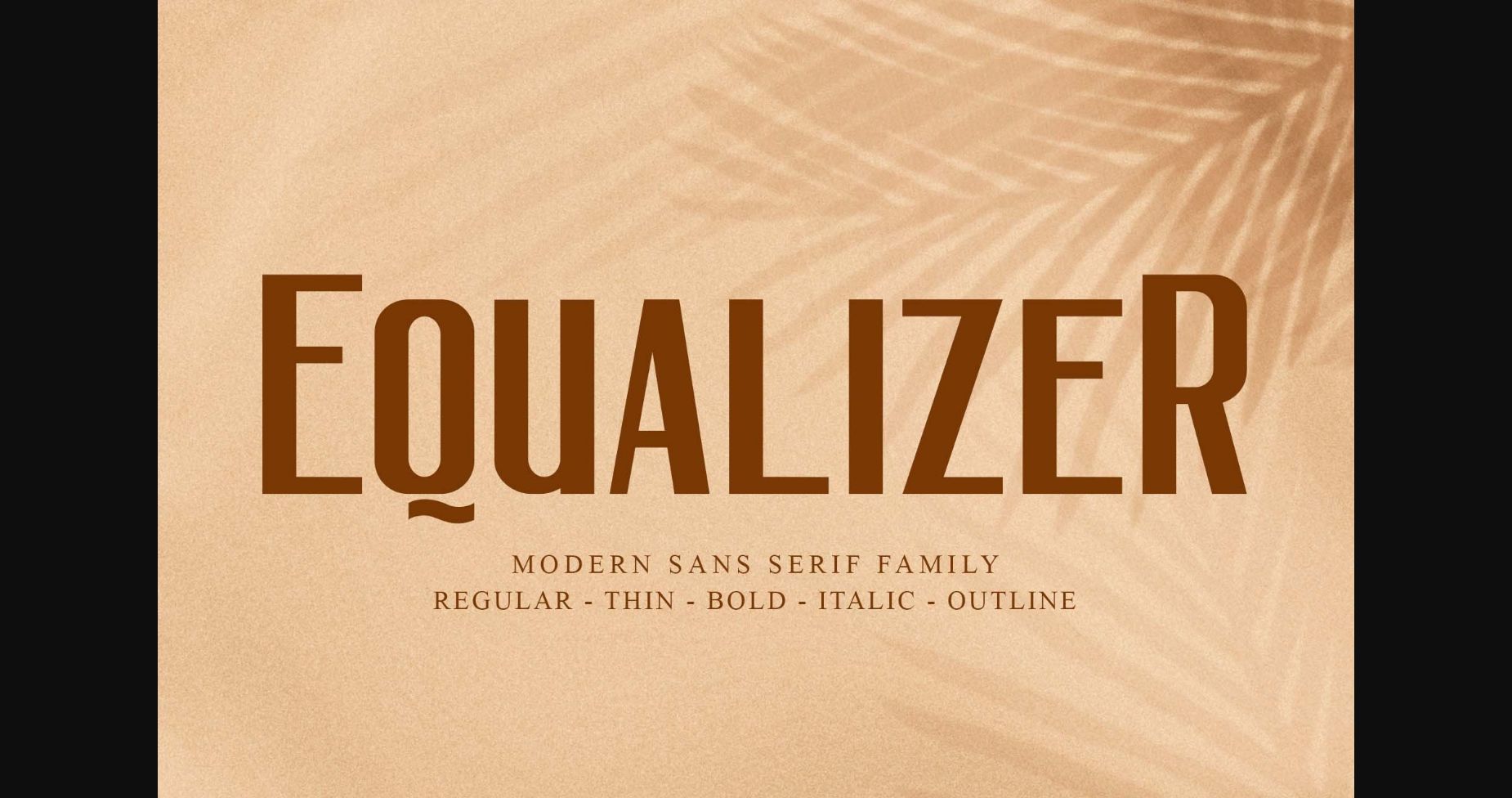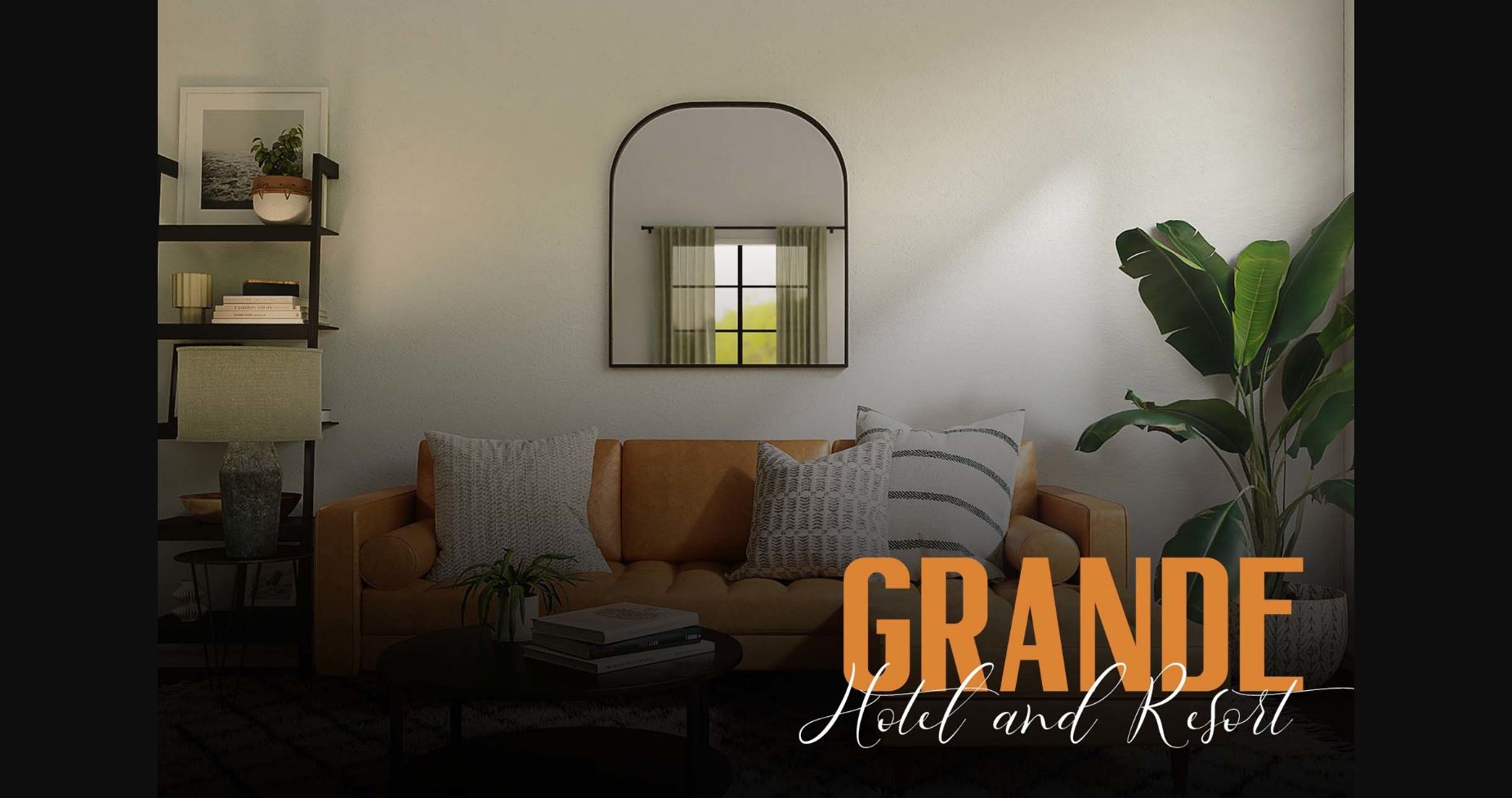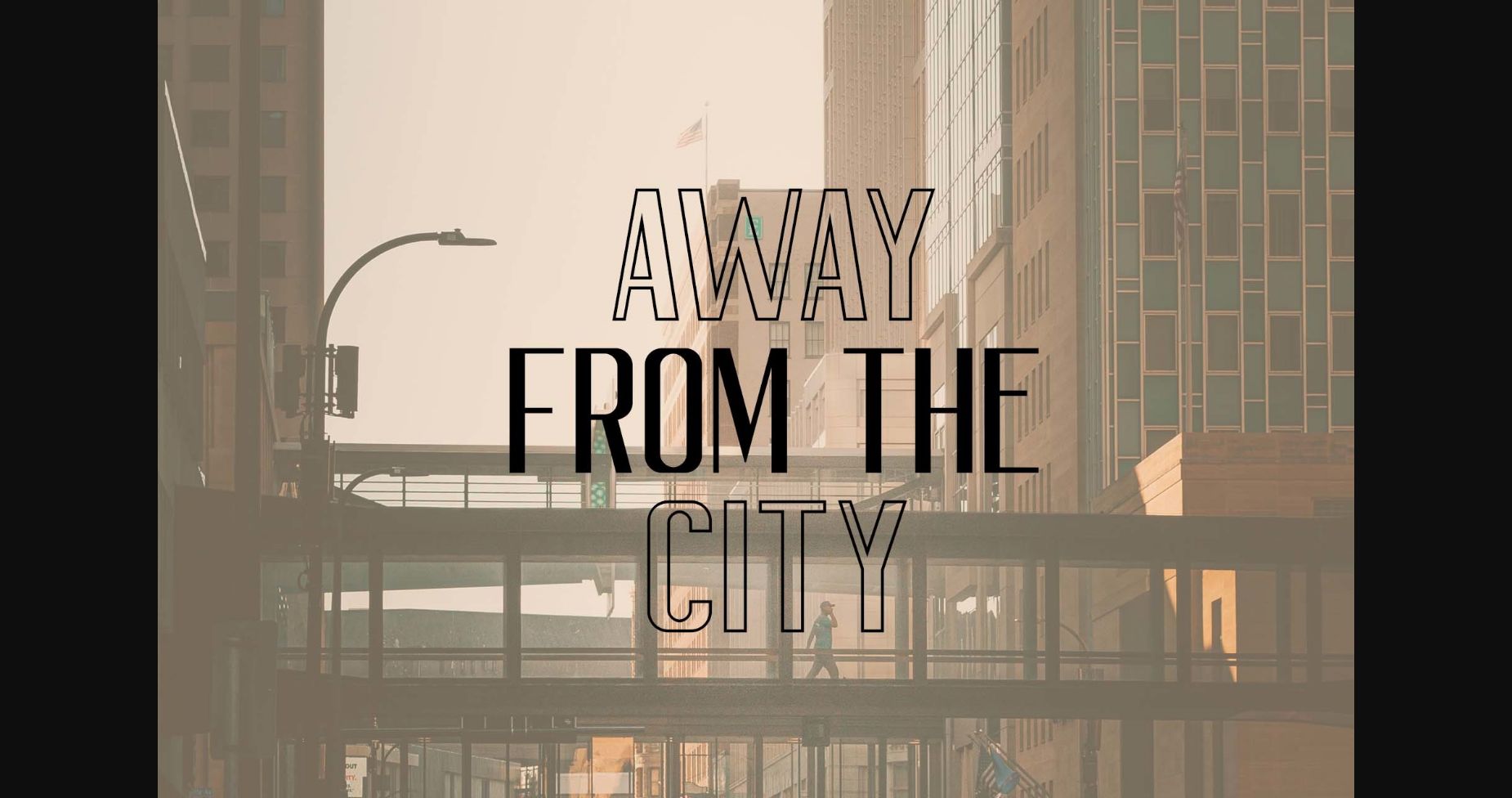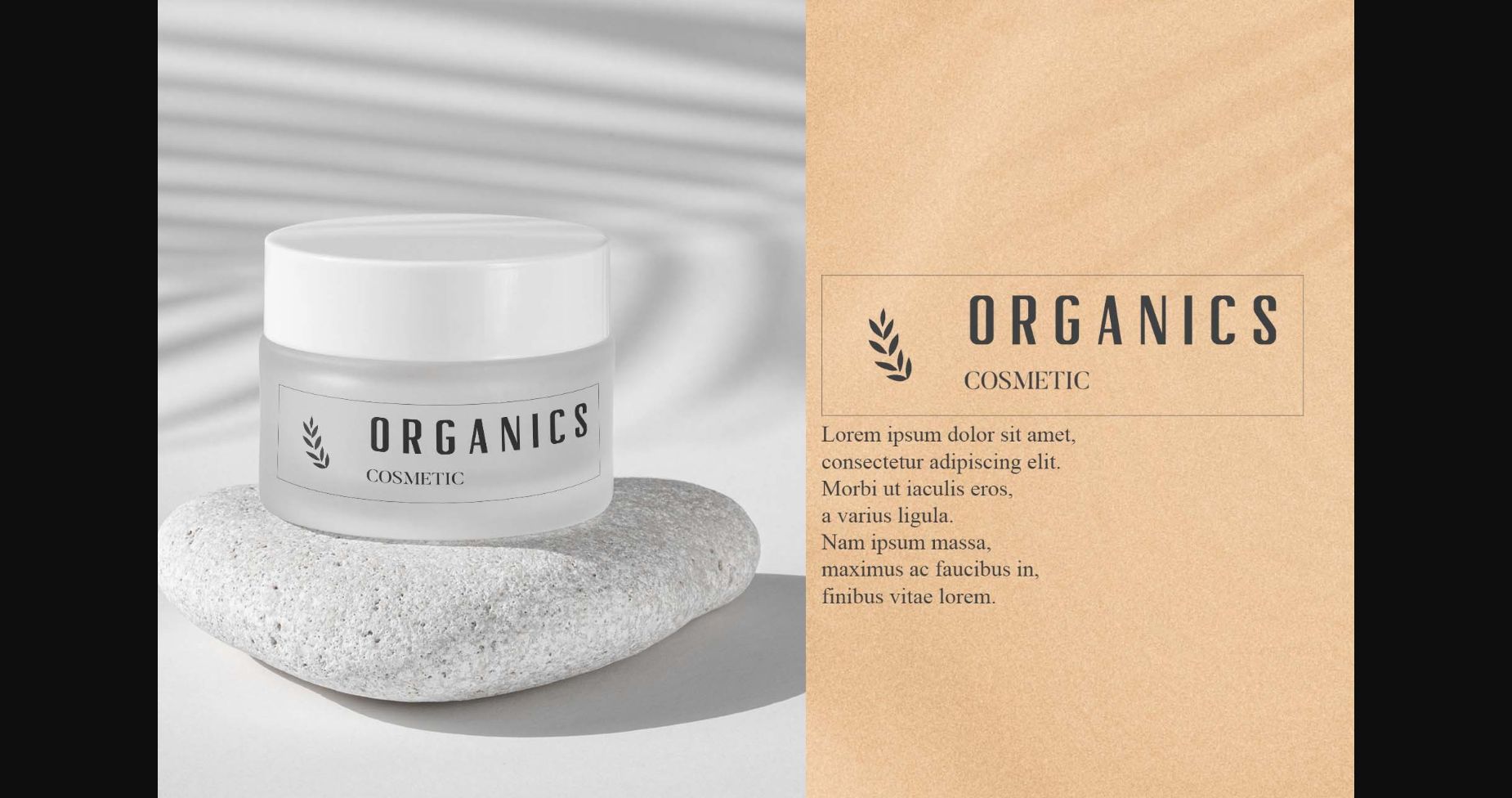
About Equalizer Font
Equalizer is a modern sans serif family. Its variety of weights provide a range of choices that will help you find the best typographic color for your project. Lighter weights are well-suited for body text while heavier ones are ideal for high impact headlines.